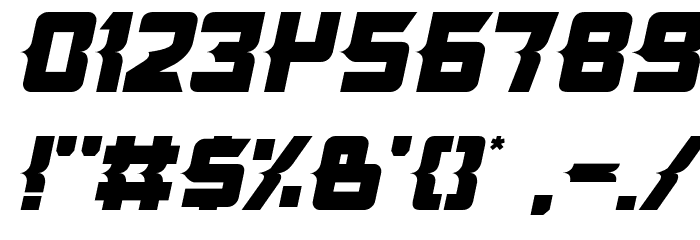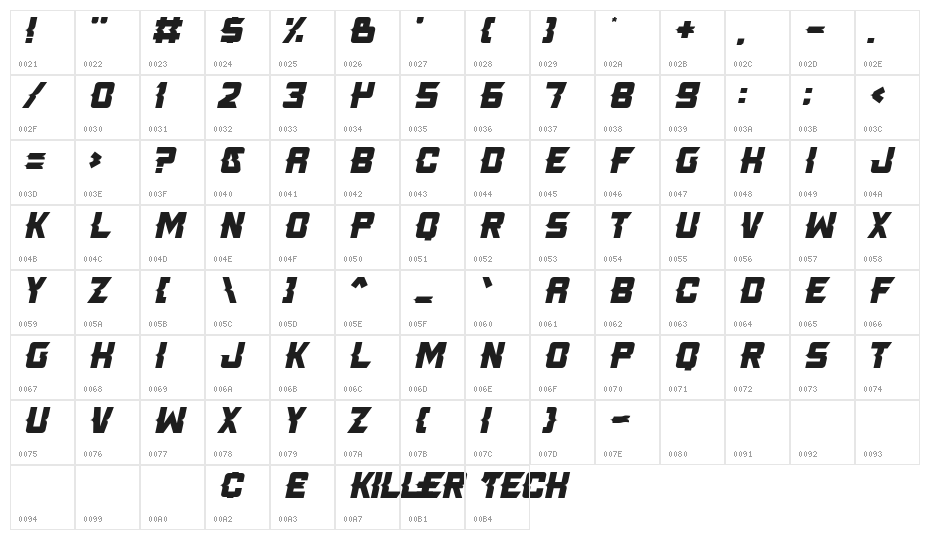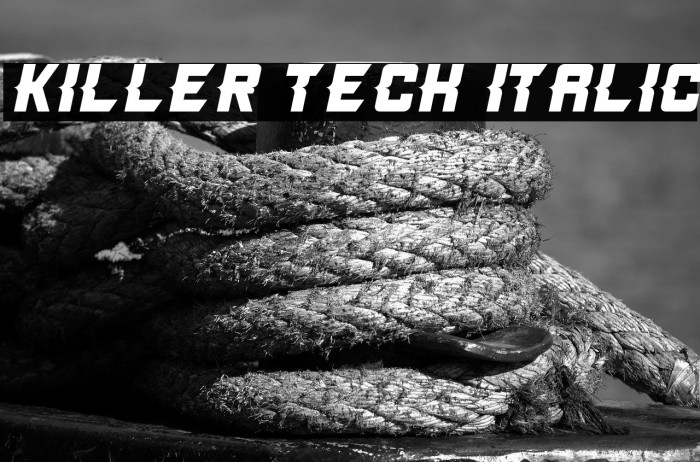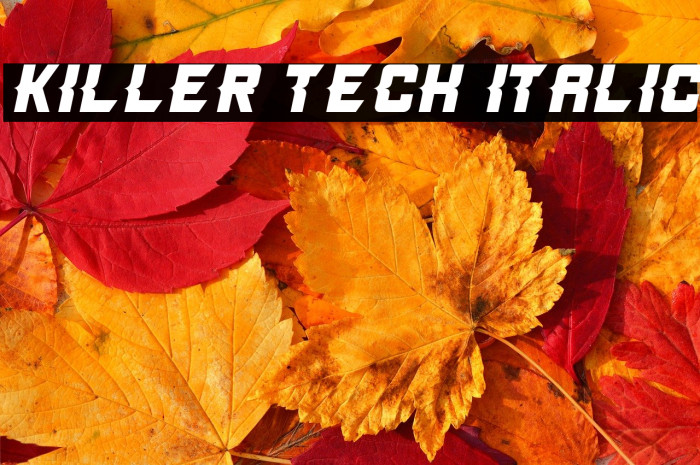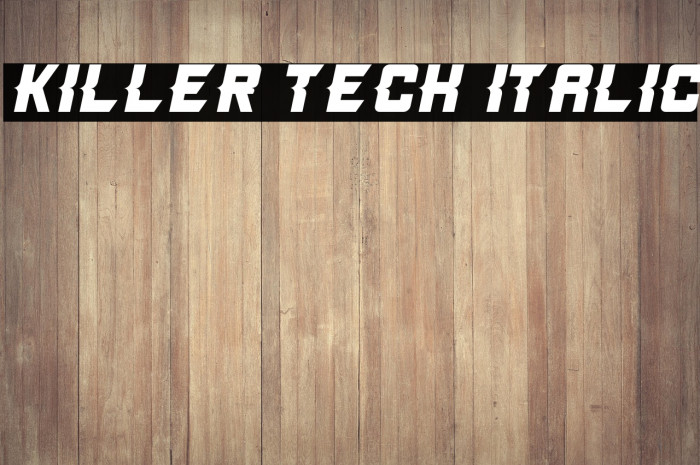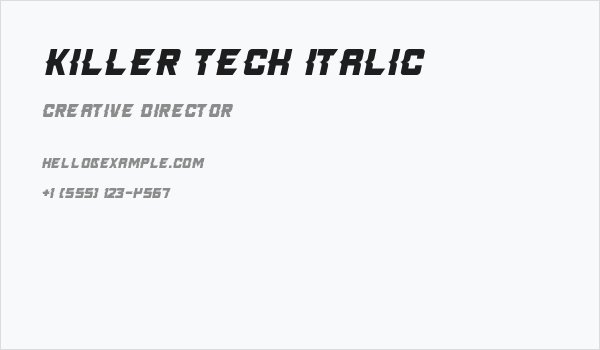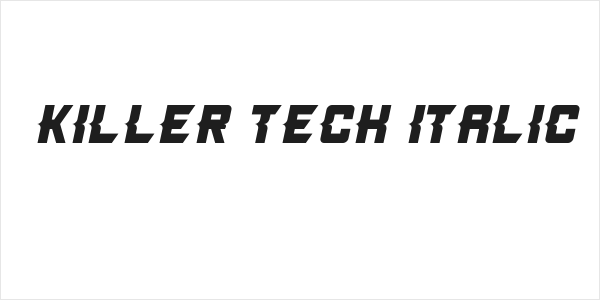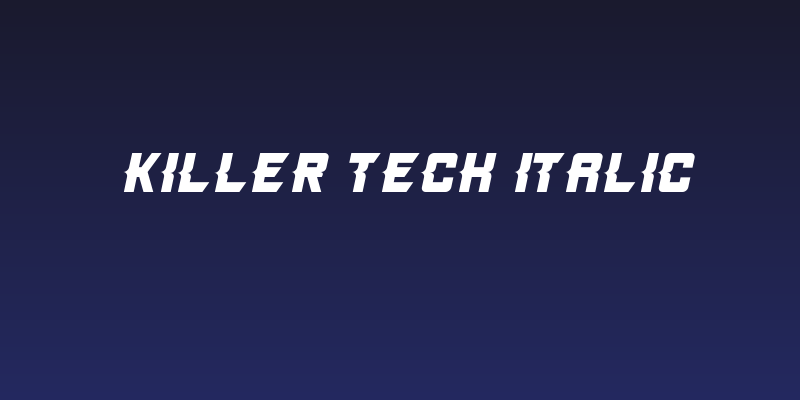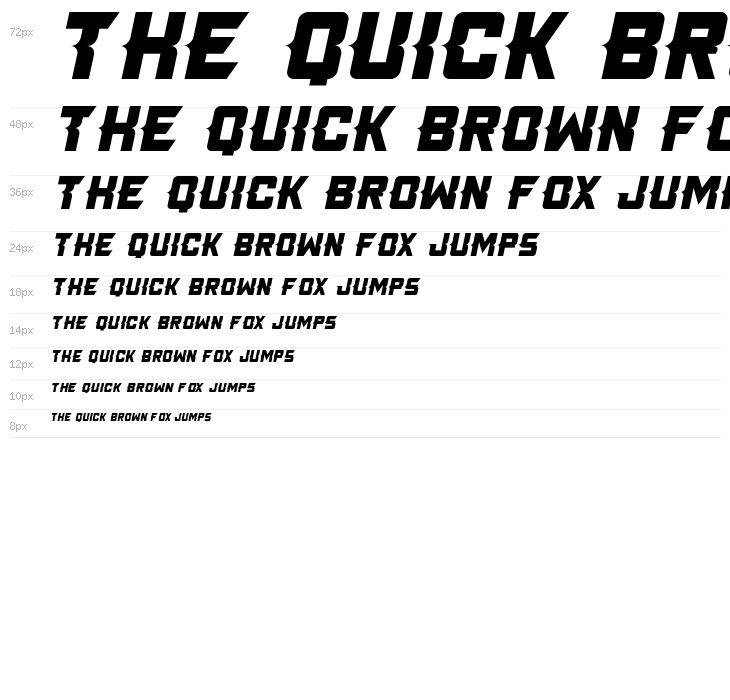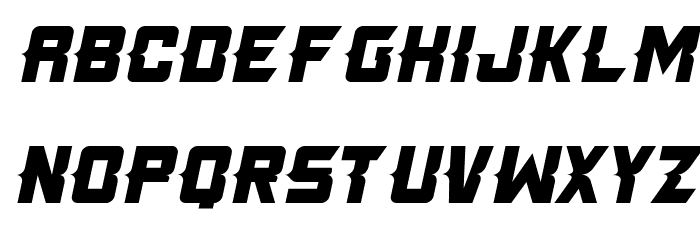
Killer Tech Italic Font
Killer Tech Italic Description
This font features a bold and dynamic design with a futuristic and tech-inspired aesthetic. The characters are italicized, giving a sense of motion and speed. The strokes are thick and angular, creating a strong visual impact. The uppercase and lowercase letters maintain a consistent style, with sharp edges and a slightly condensed form. The numbers and special characters follow the same bold and angular design, ensuring uniformity across all glyphs. This font is ideal for projects that require a modern and edgy look, such as technology branding, sports team logos, or video game titles.
| Use Case | Logos, Headlines |
| Proposed Projects | Ideal for technology branding, sports logos, and video game titles. |